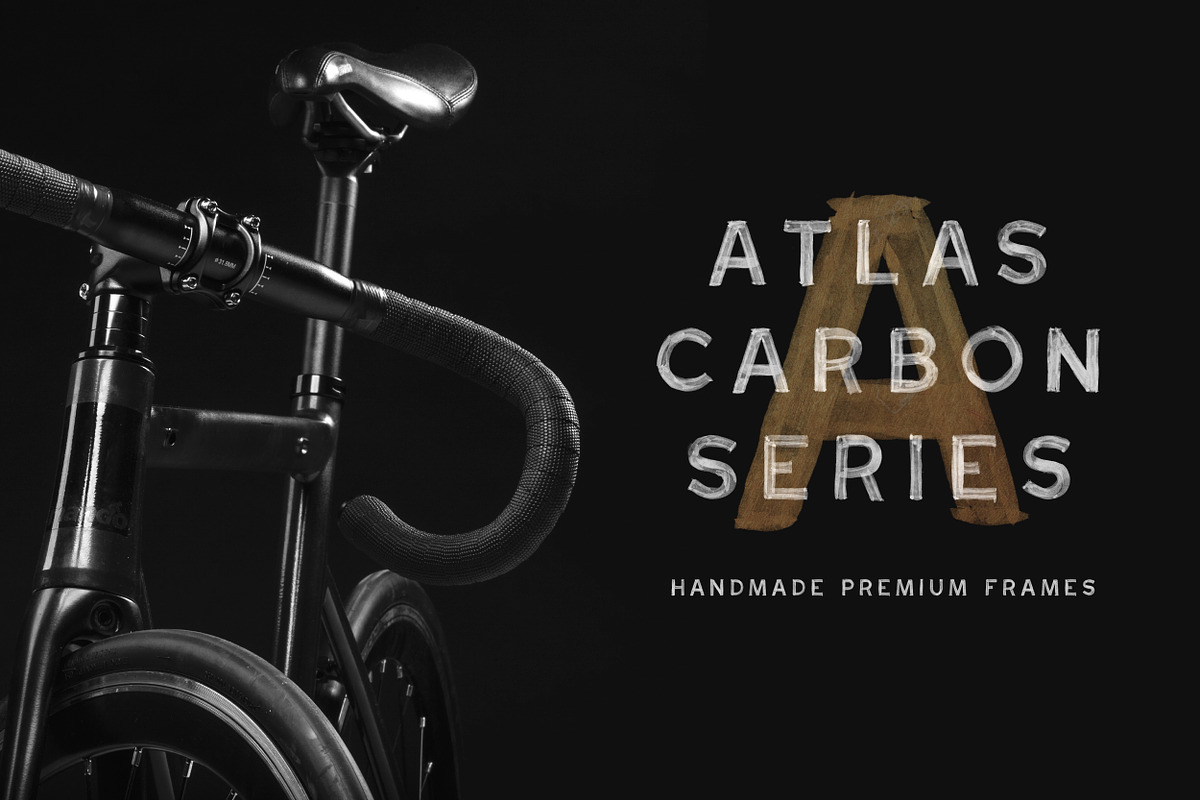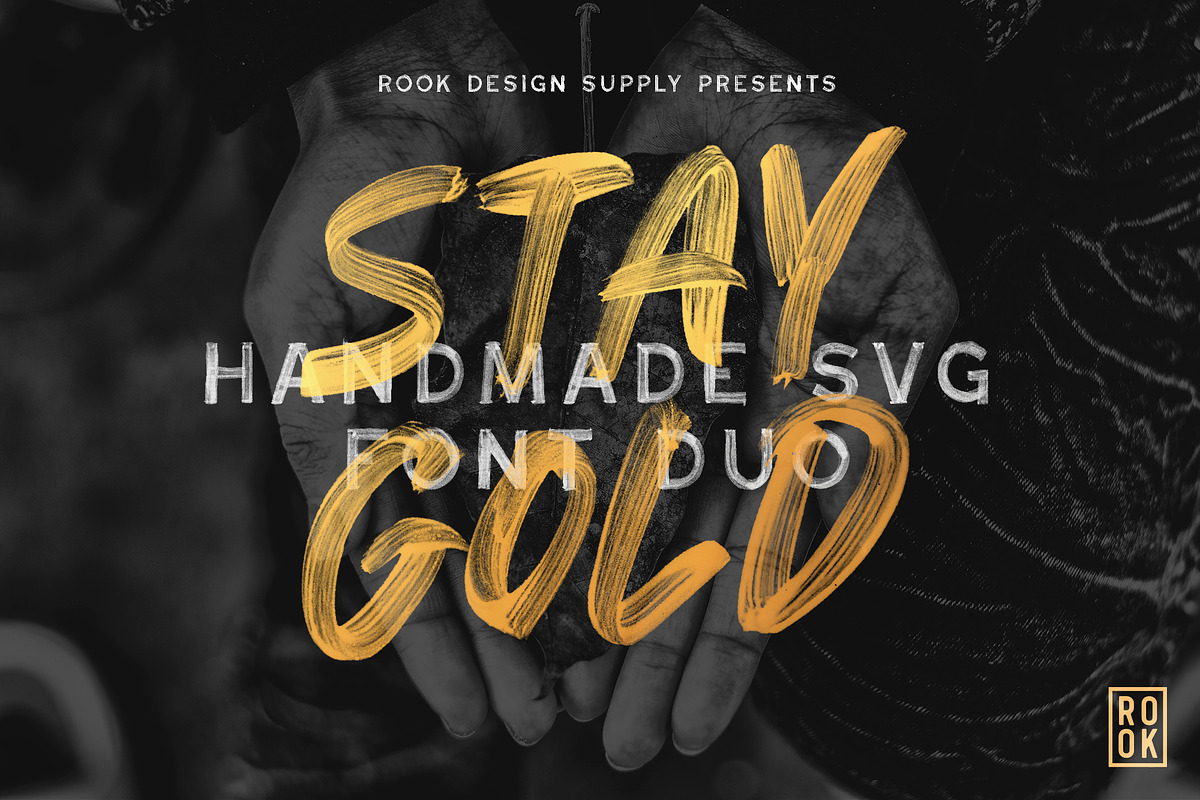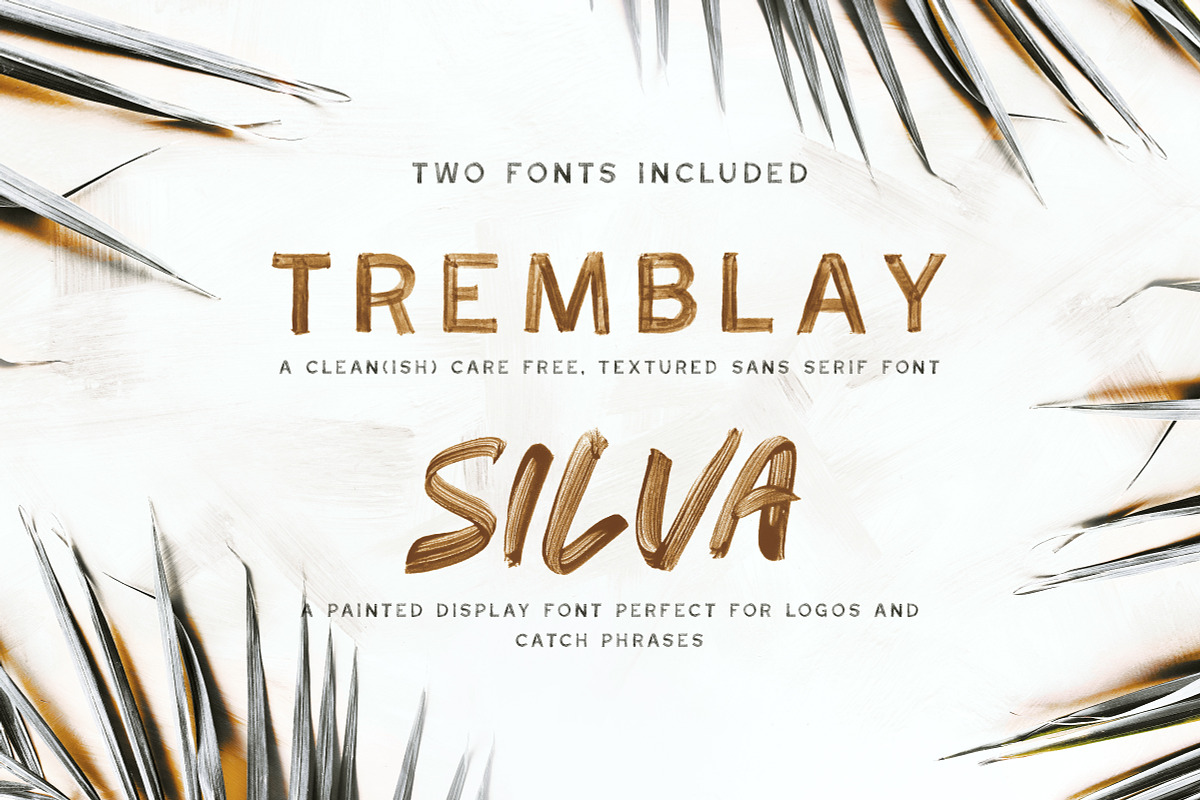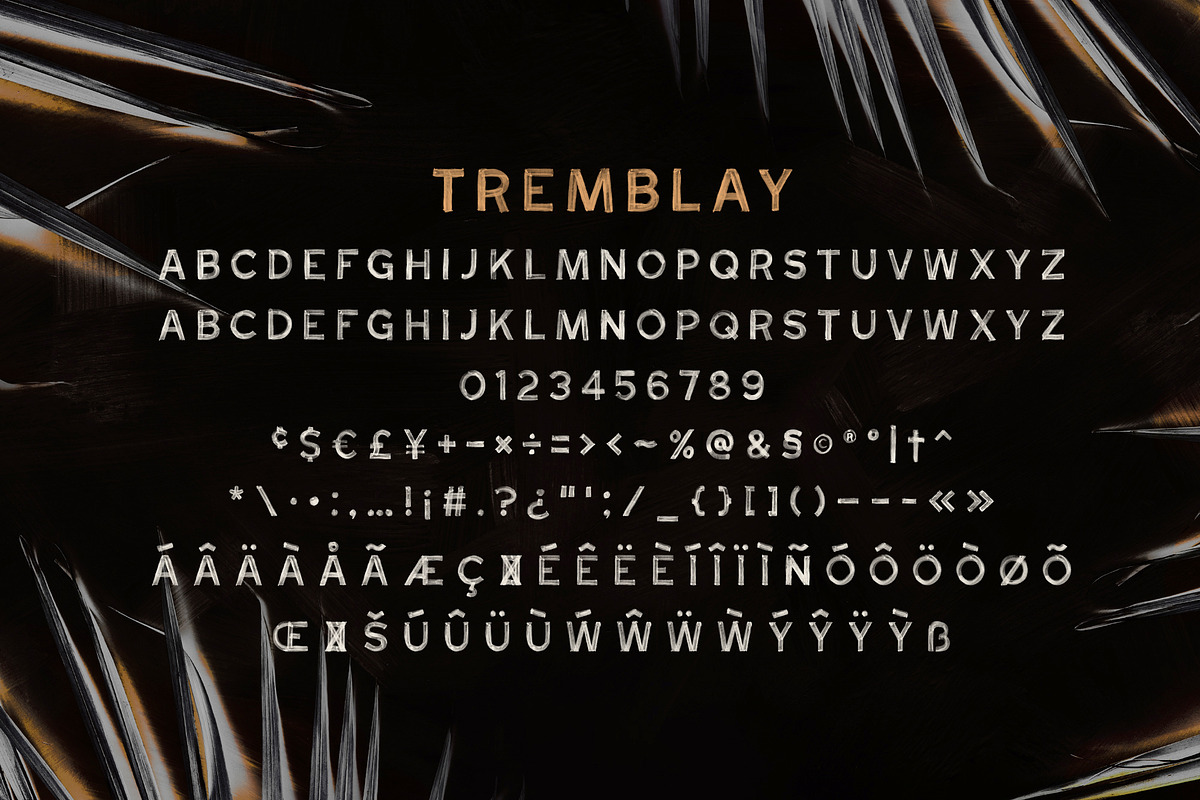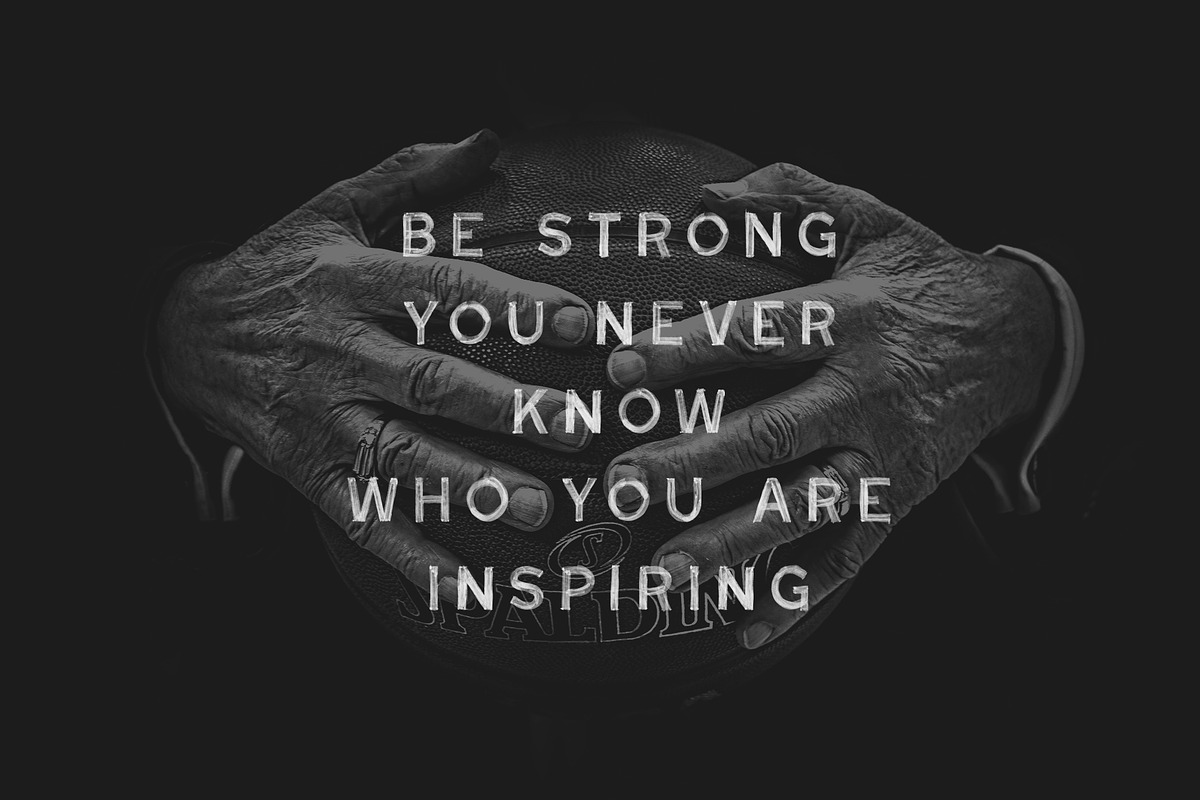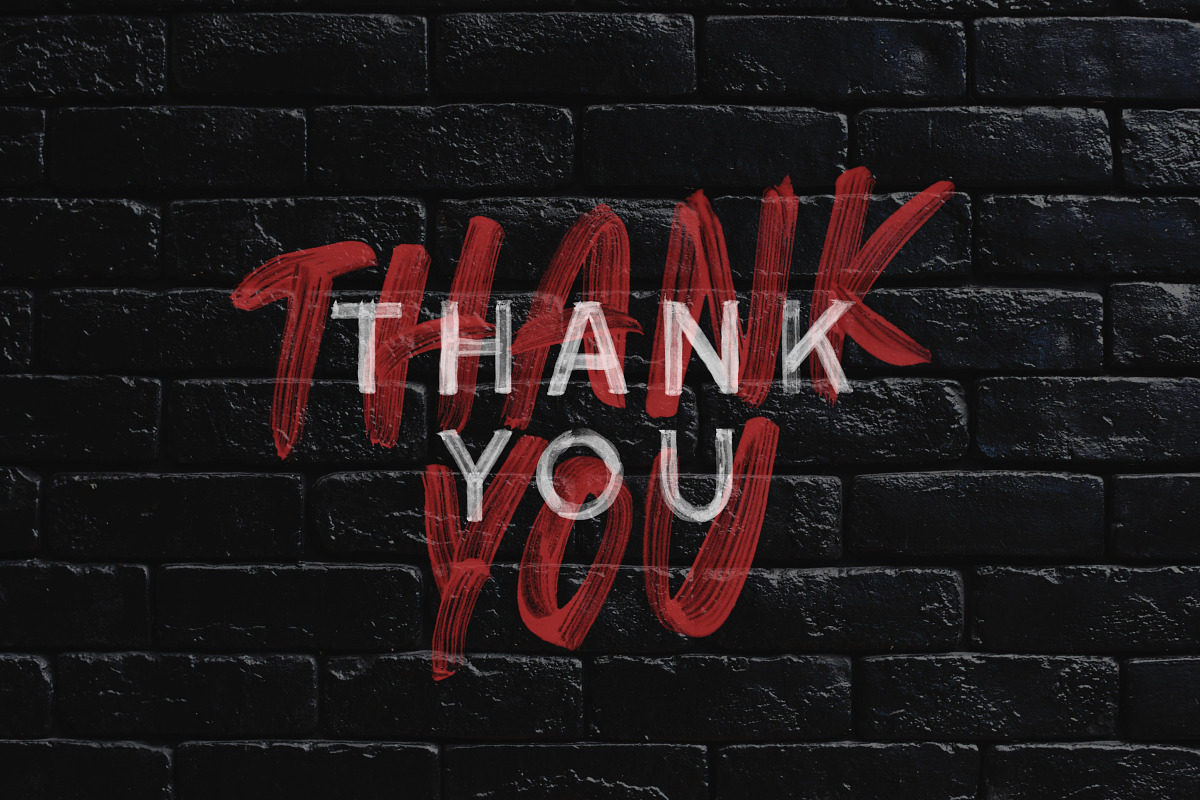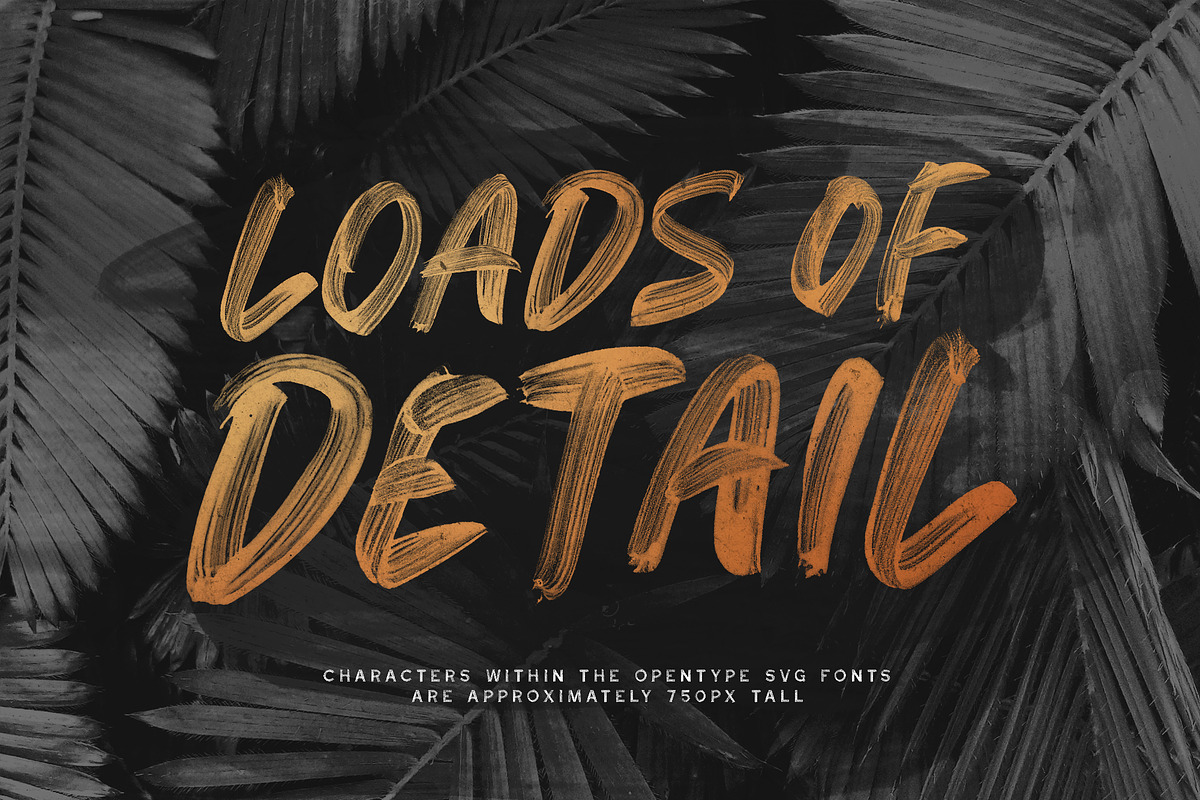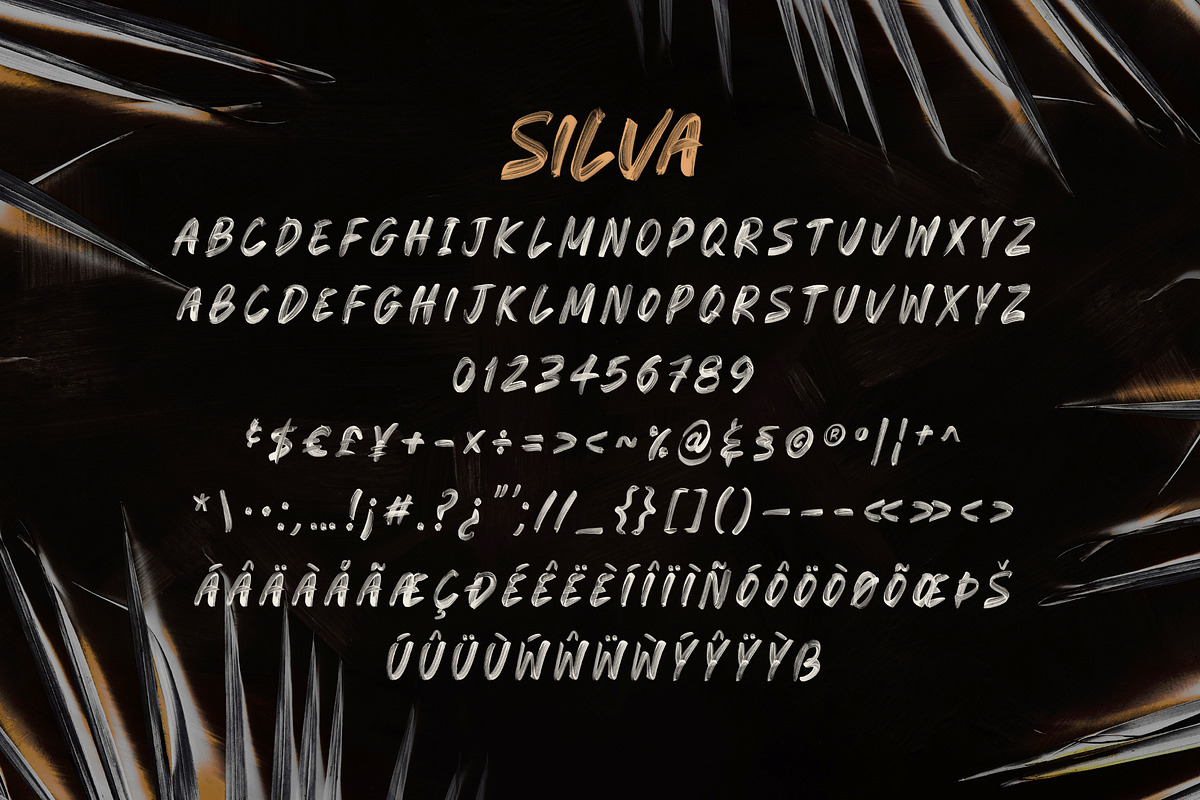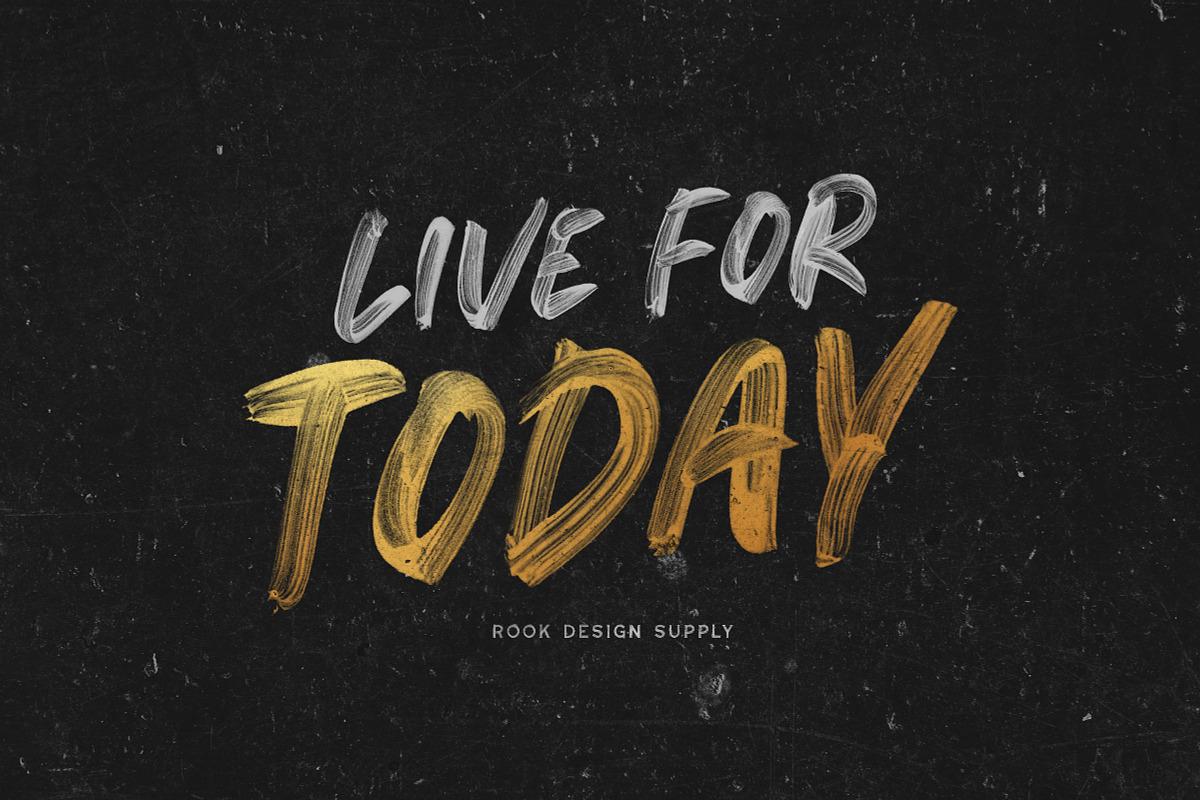
Stay Gold SVG Font Duo
After months of development and planning, I am proud to introduce the Stay Gold Font Pack. With Stay Gold, you get two Opentype SVG fonts for the typical price of one. Each font takes on a life of its own, but they work great paired together which is why I didn't want to split them up.
So how does it work? Instead of vectorizing the letters, these fonts use actual images and transparency effects in order to get the quality that you see. This is all made possible thanks to the latest developments of the OpenType-SVG format, and the integration of that technology into Photoshop CC 2017 and Illustrator CC 2018. these fonts install like any other font, and can be used in any color, on any background.
Trembay - This font blends tradition with some hands-on modern flair. It is a hand painted sans serif font. Although it is an all-caps font, each lowercase character holds a substitute uppercase character, so you have two options for each letter a-z.
Silva - This font features prominent paint brush texture in every character. It's great for bold titles and logos. Like with Tremblay, each lowercase character holds a substitute uppercase character, so you have two options for each letter a-z.